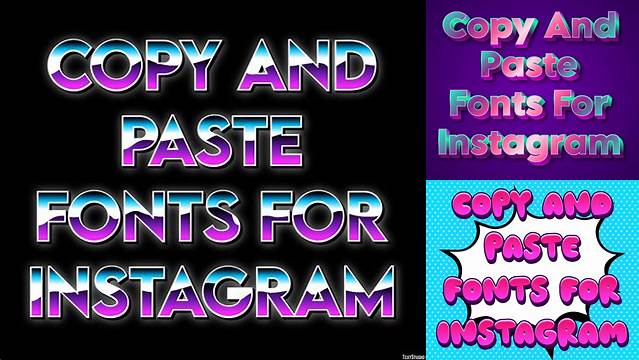
Instagram Fonts: Copy & Paste Styles To Stand Out
Are you looking to spice up your Instagram game? Want to make your posts, stories, and bio stand out from the crowd? Well, you've come to the right place! One of the easiest and most effective ways to add some flair to your Instagram presence is by using different fonts. While Instagram itself offers a limited selection of fonts, there are tons of cool and unique fonts available that you can easily copy and paste. In this guide, we'll show you how to find, copy, and paste stylish fonts to elevate your Instagram profile.
Why Use Different Fonts on Instagram?
Before we dive into the how-to, let's talk about why you should even bother with different fonts in the first place. In the crowded world of social media, grabbing attention is key. Using unique fonts can help you:
- Stand Out: Let's face it, most Instagram profiles look pretty similar. Using a different font can instantly make your profile or post more eye-catching and memorable. When your content pops, people are more likely to stop scrolling and actually engage with what you have to say. Think of it as adding a splash of color to a black-and-white world.
- Express Your Personality: Your font choice can reflect your brand's personality or your personal style. Are you going for a fun and playful vibe? A bold and serious one? The right font can help communicate that visually. Different fonts evoke different feelings. A script font might feel elegant and sophisticated, while a blocky font can feel modern and edgy. Choose fonts that align with your overall aesthetic.
- Highlight Important Information: Need to emphasize a key point in your bio or a call to action in your caption? A different font can draw attention to those crucial details. Use it sparingly to make important text stand out without overwhelming the rest of your content. Think of it as using bolding or italics in a document, but with a more visual impact.
- Create a Consistent Brand Image: Using the same fonts consistently across your Instagram profile and posts can help reinforce your brand identity. This creates a cohesive and professional look that your followers will recognize. Consistency is key in branding. When people see your posts, they should instantly recognize your style, and fonts play a big part in that.
How to Find Cool Fonts for Instagram
Okay, so you're sold on the idea of using different fonts. Now, where do you find them? Thankfully, there are plenty of online tools that generate stylish fonts that you can easily copy and paste into Instagram. Here are a few popular options:
- Font Generator Websites: There are tons of websites that offer font generators specifically for social media. These sites typically allow you to type in your text, and then they'll generate a variety of different font styles for you to choose from. Some popular options include LingoJam, Cool Fonts Online, and FontGet. These websites are super user-friendly. Just type, scroll, and copy!
- Font Generator Apps: If you prefer using your phone, there are also plenty of font generator apps available for both iOS and Android. These apps work similarly to the websites, allowing you to generate different font styles and copy them to your clipboard. Some popular apps include Fonts - for Instagram, Cool Fonts, and Stylish Text. Apps can be more convenient if you do most of your Instagramming on your phone.
- Unicode Text Converters: Instagram uses Unicode characters, which means you can use special characters and symbols to create unique text styles. Unicode text converters allow you to convert regular text into Unicode versions that include different fonts and symbols. Check out websites like Unicode Text Converter or YayText. These converters open up a whole world of possibilities beyond just basic font styles.
When choosing a font, consider the overall aesthetic you're going for and make sure the font is legible. Some fancy fonts might look cool, but if they're hard to read, people will just scroll past. You want something that catches the eye without sacrificing readability.
Step-by-Step Guide: Copying and Pasting Fonts
Alright, you've found the perfect font. Now, let's get it onto your Instagram profile. Here’s a simple, step-by-step guide:
- Generate Your Text: Head over to your chosen font generator website or app. Type in the text you want to use in your Instagram bio, caption, or story. Play around with different fonts until you find one you love.
- Copy the Font: Once you've found the perfect font, simply copy the generated text to your clipboard. On most websites and apps, there will be a copy button or a similar option. Just tap or click it, and the text will be ready to paste.
- Paste into Instagram: Open the Instagram app and navigate to where you want to use the new font. This could be your bio (Edit Profile), a new post caption, or an Instagram Story. Paste the text into the desired field.
- Adjust and Post: Once you've pasted the text, take a look to make sure it looks good. Adjust the size or placement if necessary. Then, post your content as usual. Congrats, you’ve just upgraded your Instagram game!
By following these tips, you can create an Instagram profile that is both stylish and accessible to everyone.
Using different fonts on Instagram is a fun and easy way to add some personality and flair to your profile. With the help of font generator websites and apps, you can easily copy and paste stylish fonts into your bio, captions, and stories. Just remember to use fonts sparingly, choose legible fonts, and consider accessibility. So go ahead, experiment with different fonts and see how they can help you elevate your Instagram game! Have fun and happy posting, guys!